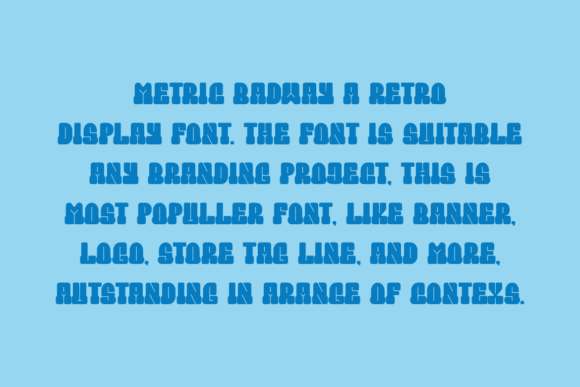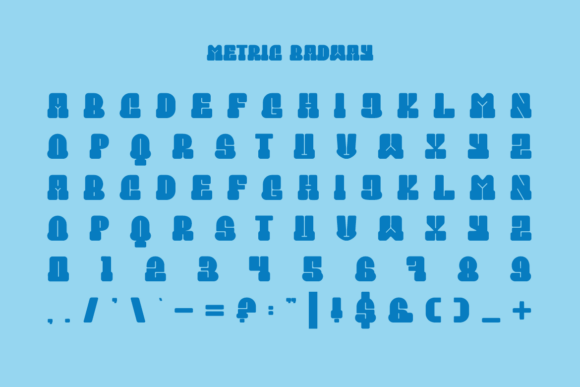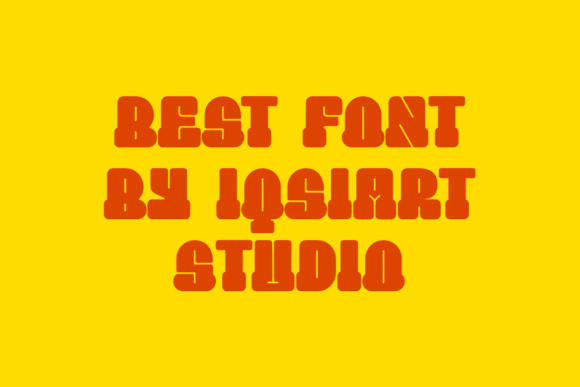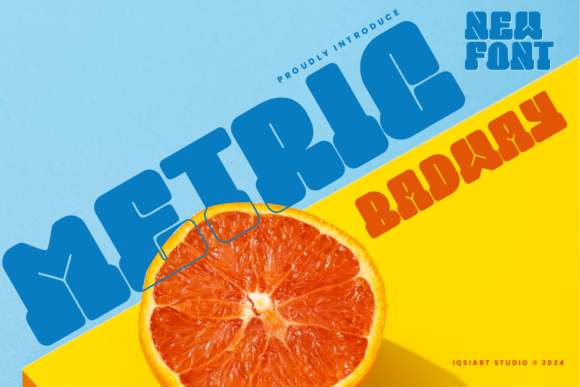
Introduction to Metric Badway Font
Metric Badway is a modern and vibrant display font that brings retro charm with a geometric twist.
With clean, blocky forms and fun vintage appeal, it’s perfect for creative branding, editorial layouts, packaging, and retro-inspired visuals .